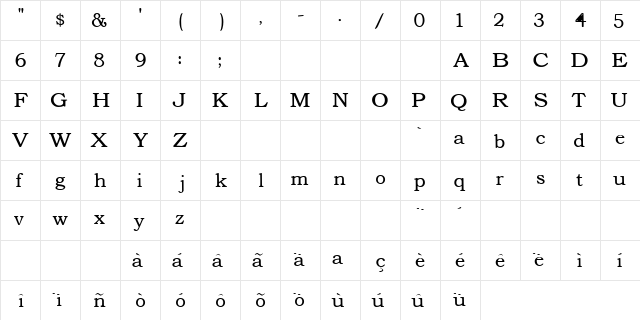
Text Serif Lighter HPLHS
Design Context for Text Serif Lighter Typeface
Text Serif Lighter carries the refined structure of traditional serif typography, with bracketed terminals and considered proportions that communicate credibility and craft. The delicate stroke weight brings airiness and refinement to layouts.
Pro Tip: Set Text Serif Lighter at slightly larger body copy sizes than you would a regular-weight serif to compensate for its delicate stroke contrast.